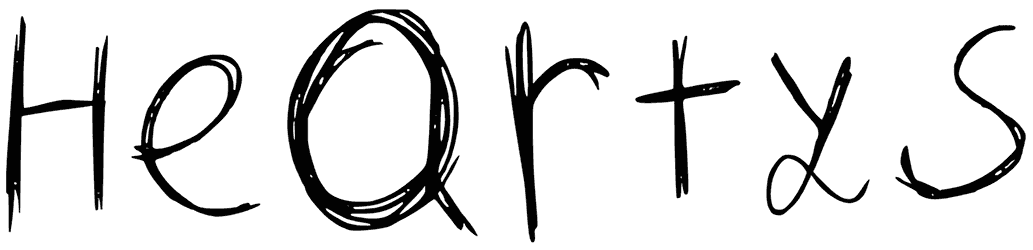
Heartys Font
By having a manuscript and special words, you can give your context a catchy and memorable look. This handwritten font consists of captivating pen lettering with a lovely vibe. Heartys font doesn’t offer numerals and mos…
By having a manuscript and special words, you can give your context a catchy and memorable look. This handwritten font consists of captivating pen lettering with a lovely vibe. Heartys font doesn’t offer numerals and most punctuation marks, but as a distinct emo font, it will display your projects from postcards to posters with a cheerful mood.
This font I’d my first ever font there might be problems with it. No lower case looks good in this font.